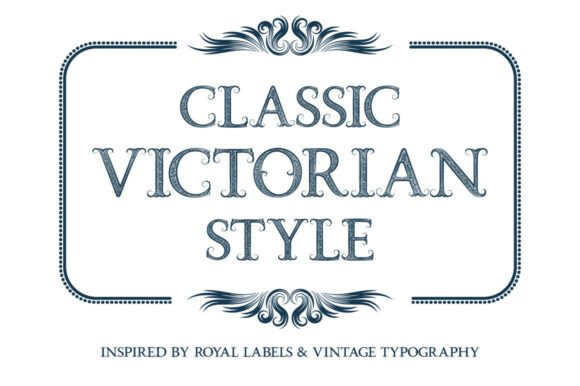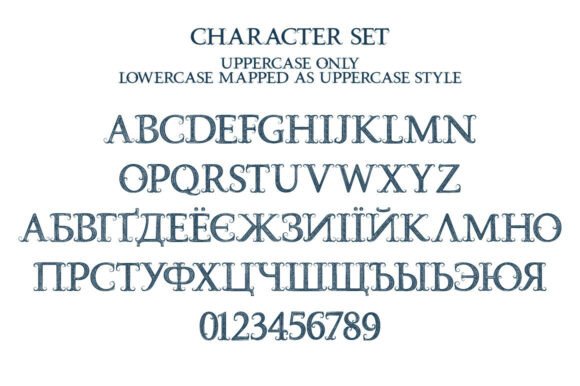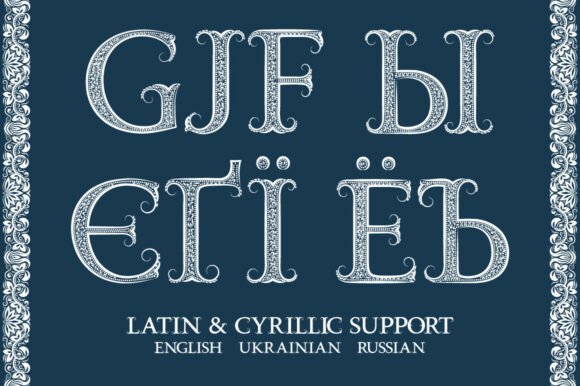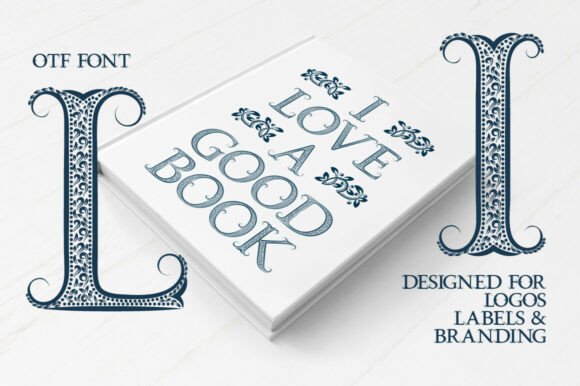
Introduction to Royal Vintage Label Font
Have you ever been rummaging through an old trunk in your attic, uncovering dusty labels and forgotten packaging that once held a special place in your heart? For many designers, this is a moment of pure creative bliss – a chance to tap into the nostalgia of yesteryear and let it inspire their next project. That’s exactly what Royal Vintage Label Font is all about – capturing the essence of a bygone era and infusing it with the majesty of royal emblems.
As a designer, you’re always on the lookout for unique design resources that can elevate your creative project to the next level. And that’s where Royal Vintage Label Font comes in – a high-quality font that’s perfect for logos, branding, packaging, labels, badges, and editorial tasks. With its ornate display style and transparent background, this font is a game-changer for any design project that requires a touch of vintage elegance.
Key Features of Royal Vintage Label Font
- High-quality, elegant font design perfect for a creative project, evoking a sense of luxury and sophistication.
- Includes a transparent background, allowing for seamless integration into various design elements.
- Unique characteristics include ornate details, distressed textures, and vintage-inspired elements, adding a touch of elegance to any design.
- Perfect for use in invitations, branding materials, packaging, and other design projects where a touch of luxury is desired.
Honest Review: Royal Vintage Label Font
I recently stumbled upon the Royal Vintage Label Font, a free download that has been a great addition to my design resource library. As a designer, I’m always on the lookout for unique and high-quality fonts that can elevate my creative projects.
- ✨ The Royal Vintage Label Font has a stunning, distressed look that adds a touch of elegance to any design. I love how it can be used for labels, packaging, and even branding materials.
- ✨ The font comes with a transparent background, making it easy to use with different backgrounds and colors.
- ✨ The quality of the font is excellent, with smooth lines and well-defined characters.
While the Royal Vintage Label Font is a great asset, I did encounter a few limitations:
- ⚠️ The font is a bit limited in terms of its character set, which might not be suitable for projects that require a wide range of characters.
- ⚠️ The font is not suitable for large-scale use, such as in books or magazines, due to its distressed nature.
Overall, I’m impressed with the Royal Vintage Label Font. It’s a great design resource for designers who want to add a touch of vintage charm to their projects. Just be aware of its limitations, and you’ll be good to go!
To get the most out of the Royal Vintage Label Font, use it in combination with other design elements to create a cohesive look. Experiment with different font sizes and colors to add depth and interest to your designs.
The Royal Vintage Label Font is perfect for:
- Brand identity and packaging design
- Photography and editorial design